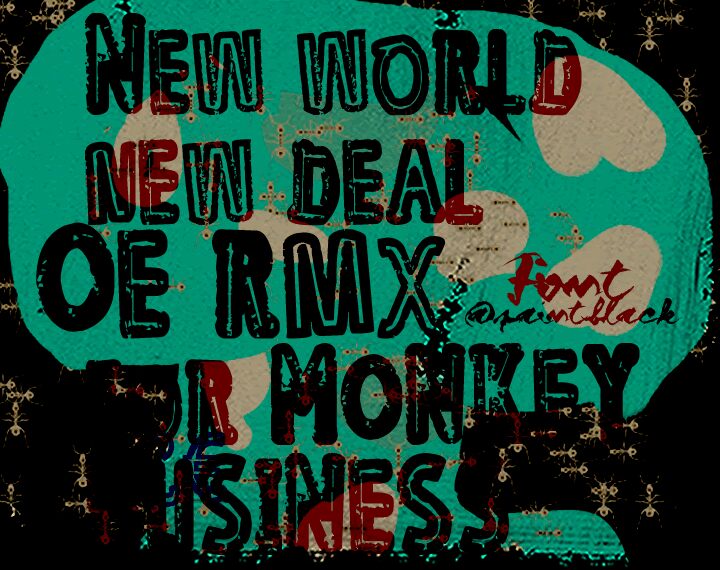
OE rmx by paintblack is a free eroded display font with bulky, uneven letters and a rough cutout texture. The silhouettes swell, pinch, and lean in different directions. Narrow forms sit beside broad ones, giving the lettering a deliberately unruly pace.
Its battered punk-poster character suits gig flyers and album artwork, where the chipped surfaces can echo torn paper, photocopies, and screen-printed ink. It also fits skate merchandise and underground event graphics, especially for projects rooted in garage rock, DIY publishing, or street culture.